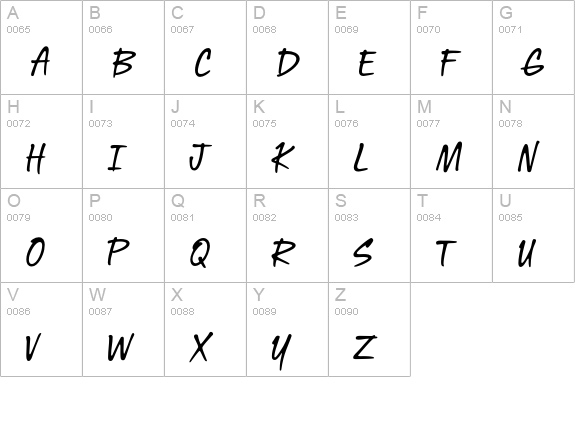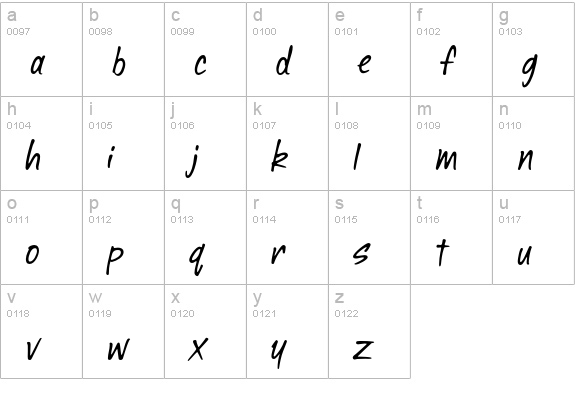
Aspire Font Details
Aspire font is a sleek and modern typeface that exudes elegance and sophistication. With its clean lines and stylish curves, Aspire is perfect for a wide range of design projects, from branding to editorial. This versatile font is sure to elevate any text, giving it a refined and professional look. The best part? Aspire font is completely free to download at FontsMarket.com. Whether you're a designer looking to add a touch of class to your creations or a business owner wanting to enhance your brand identity, Aspire font is the perfect choice. Don't miss out on this fantastic opportunity to elevate your design work with the exquisite Aspire font. Download it today and see the difference it can make!